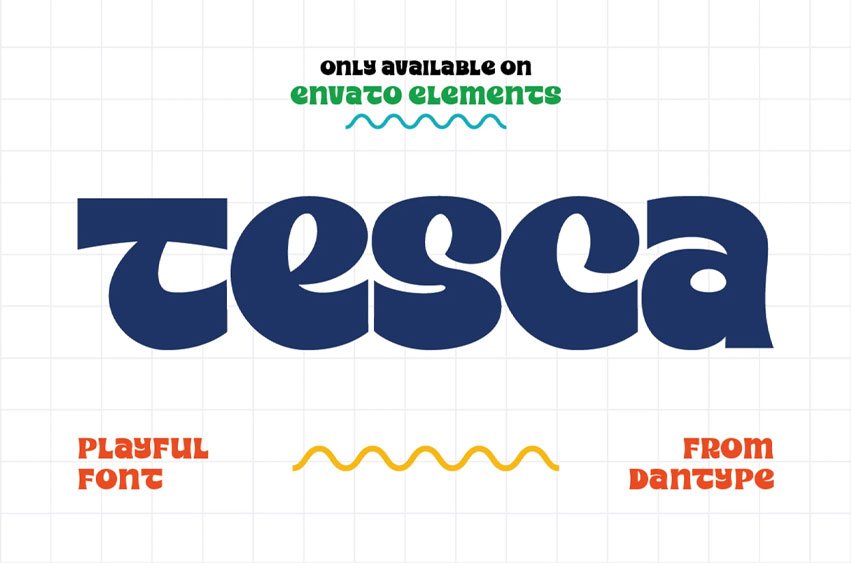
Tesca Font is a cheerful, rounded display font with a bold, bubbly personality — perfect for projects that radiate joy and creativity. Designed with smooth curves and balanced proportions, it works beautifully for children’s books, product packaging, branding, and playful digital content.
Tesca brings warmth and energy to every word, making your message feel friendly and approachable.